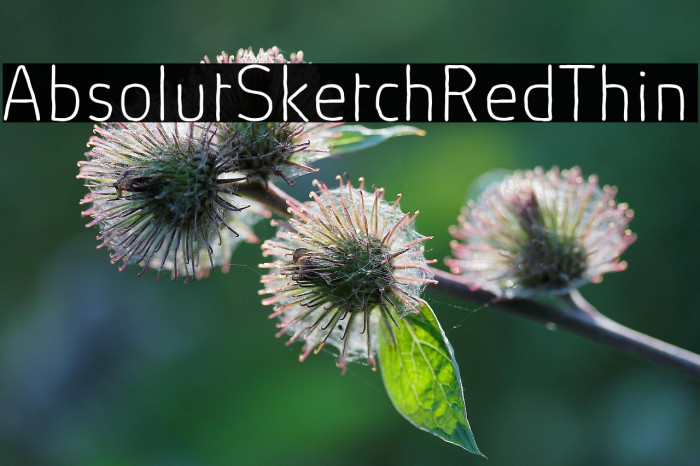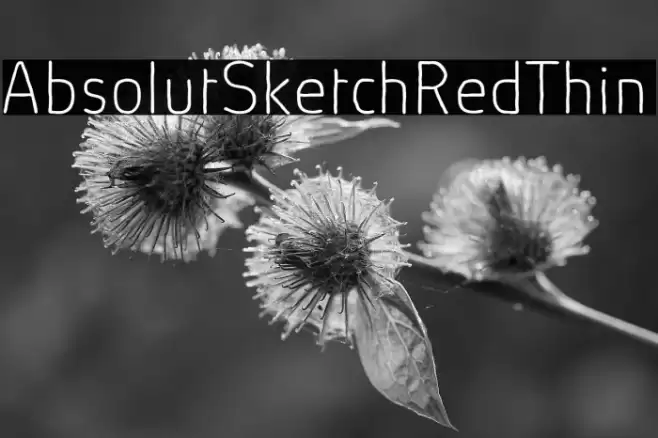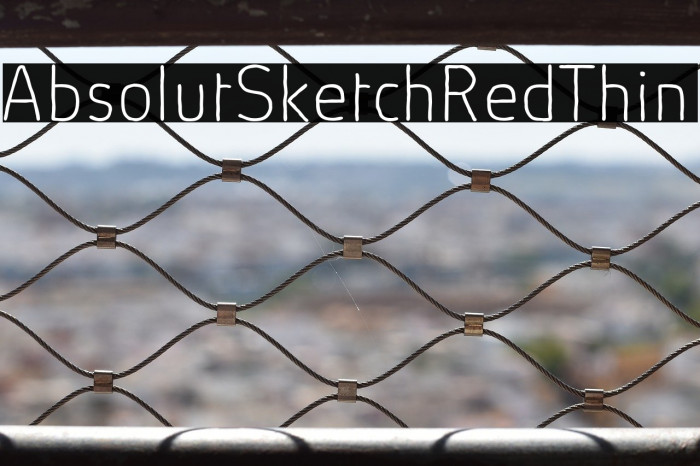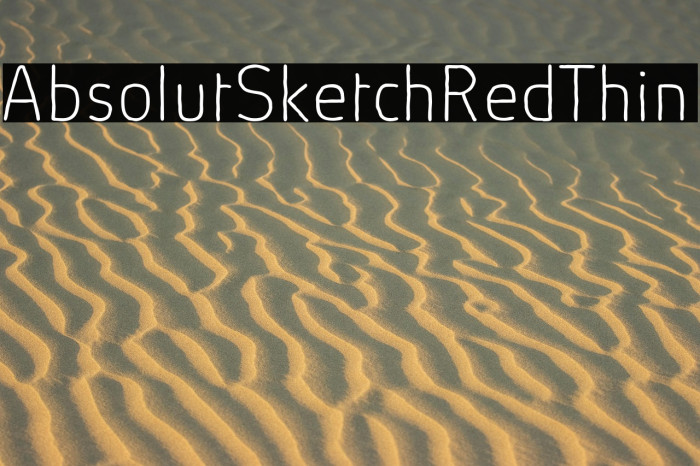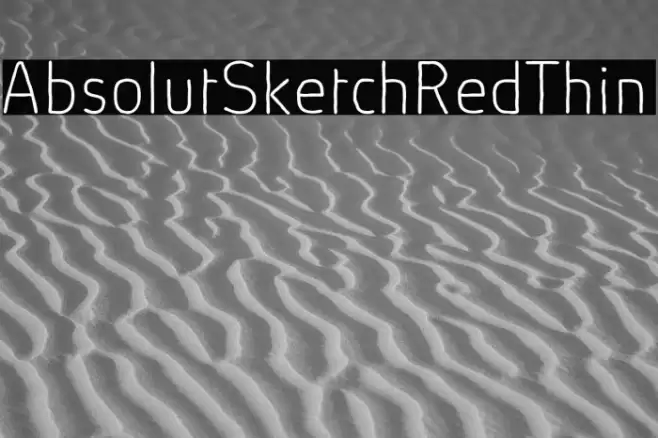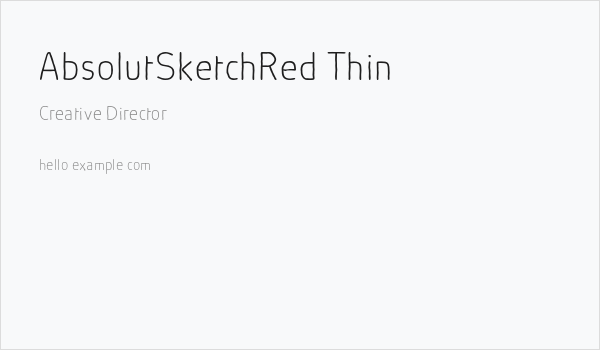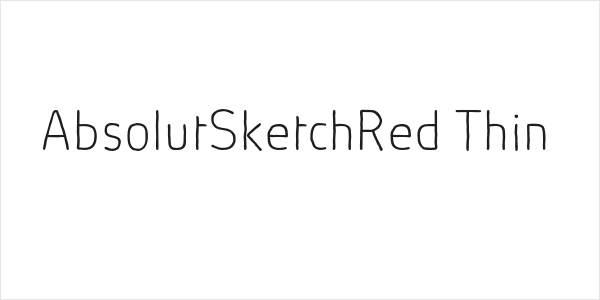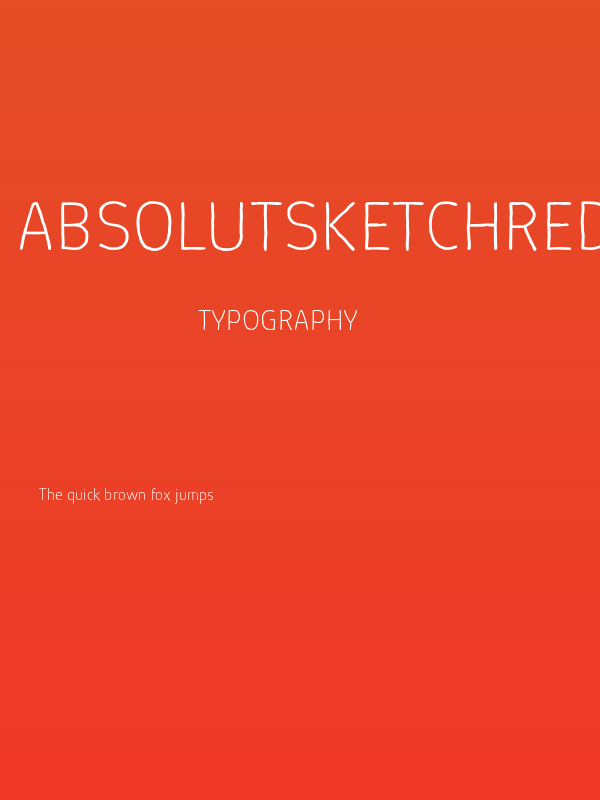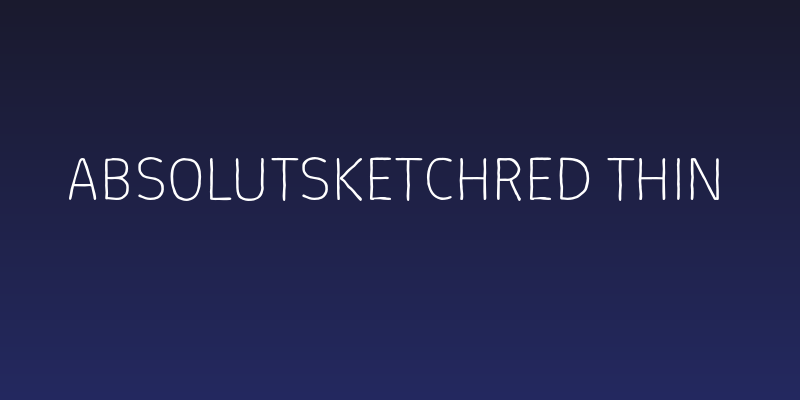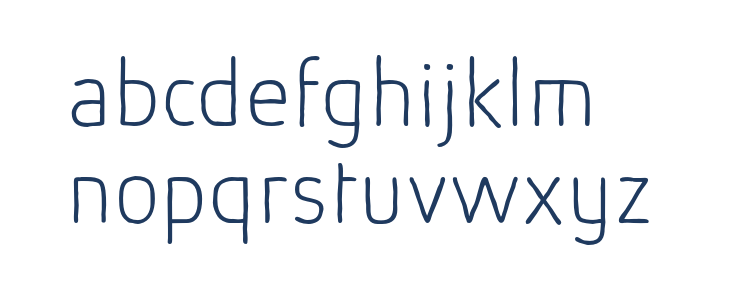
AbsolutSketchRed-Thin Font
AbsolutSketchRed-Thin Description
This font features a hand-drawn, sketch-like appearance with thin, irregular strokes that give it a casual and artistic feel. The characters are slightly uneven, adding to the handmade aesthetic. The uppercase and lowercase letters maintain a consistent style, with a playful yet readable form. The numbers and special characters follow the same design, ensuring a cohesive look across all text. This font is ideal for projects that require a personal touch or a creative, informal vibe.
| Overall Style | Casual, Artistic |
| Use Case | Headlines, Artistic projects, Informal branding |
| Proposed Projects | Ideal for creative projects such as invitations, greeting cards, posters, and artistic branding. |